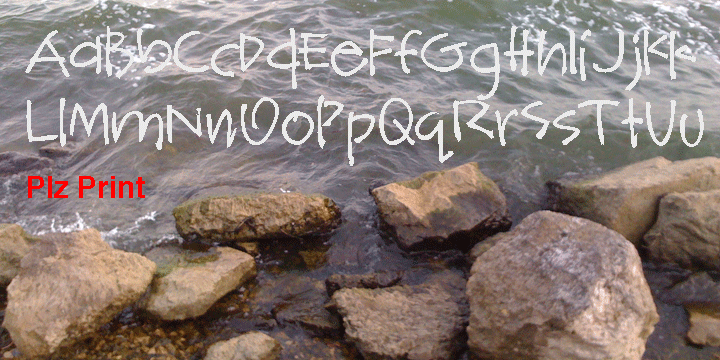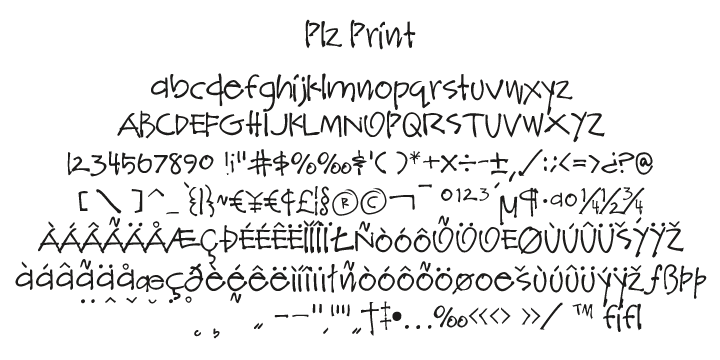
A happy, friendly hand printed font for many uses. Works as a display or body copy font. Great for that letter home to Mom or when you need a casual look.